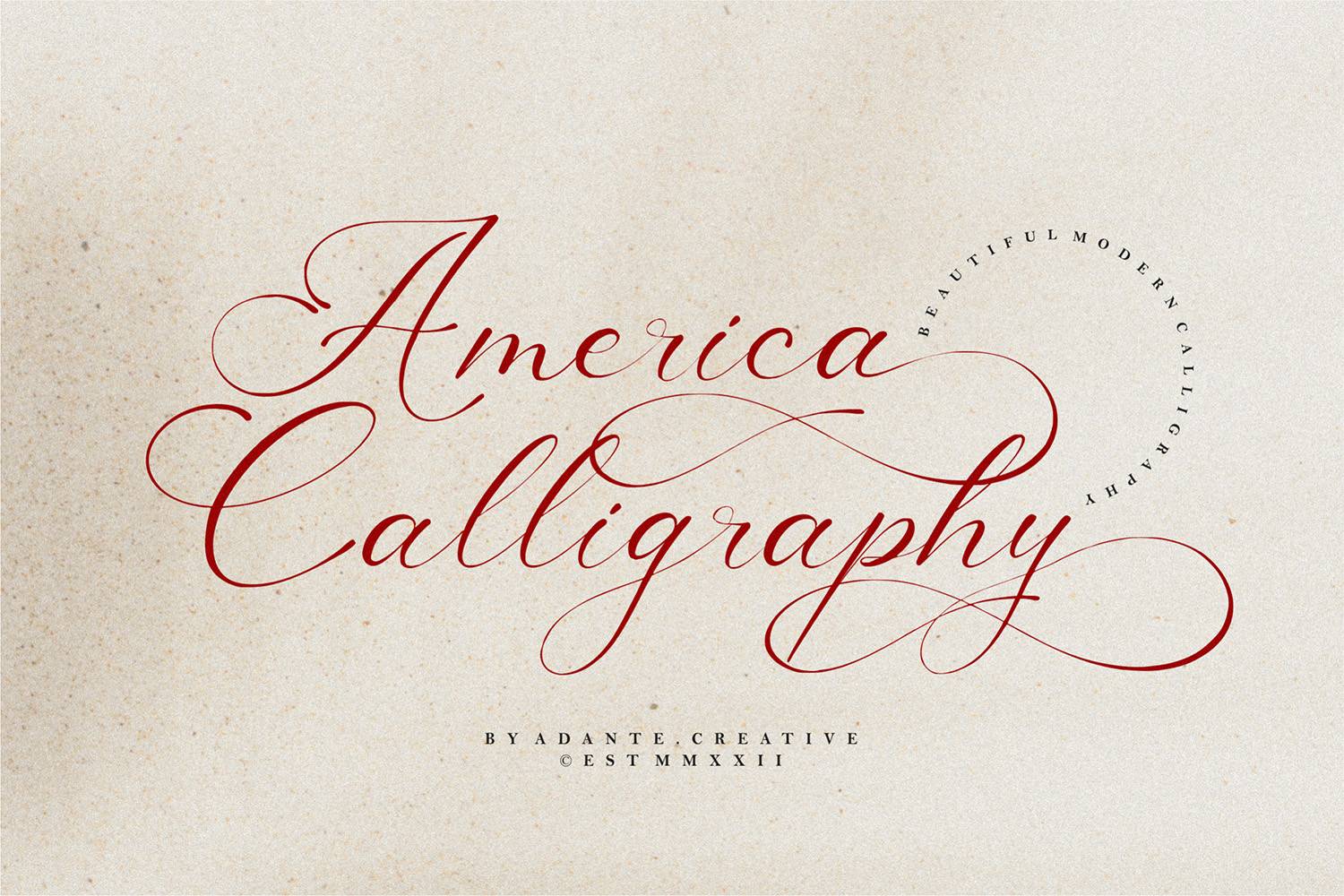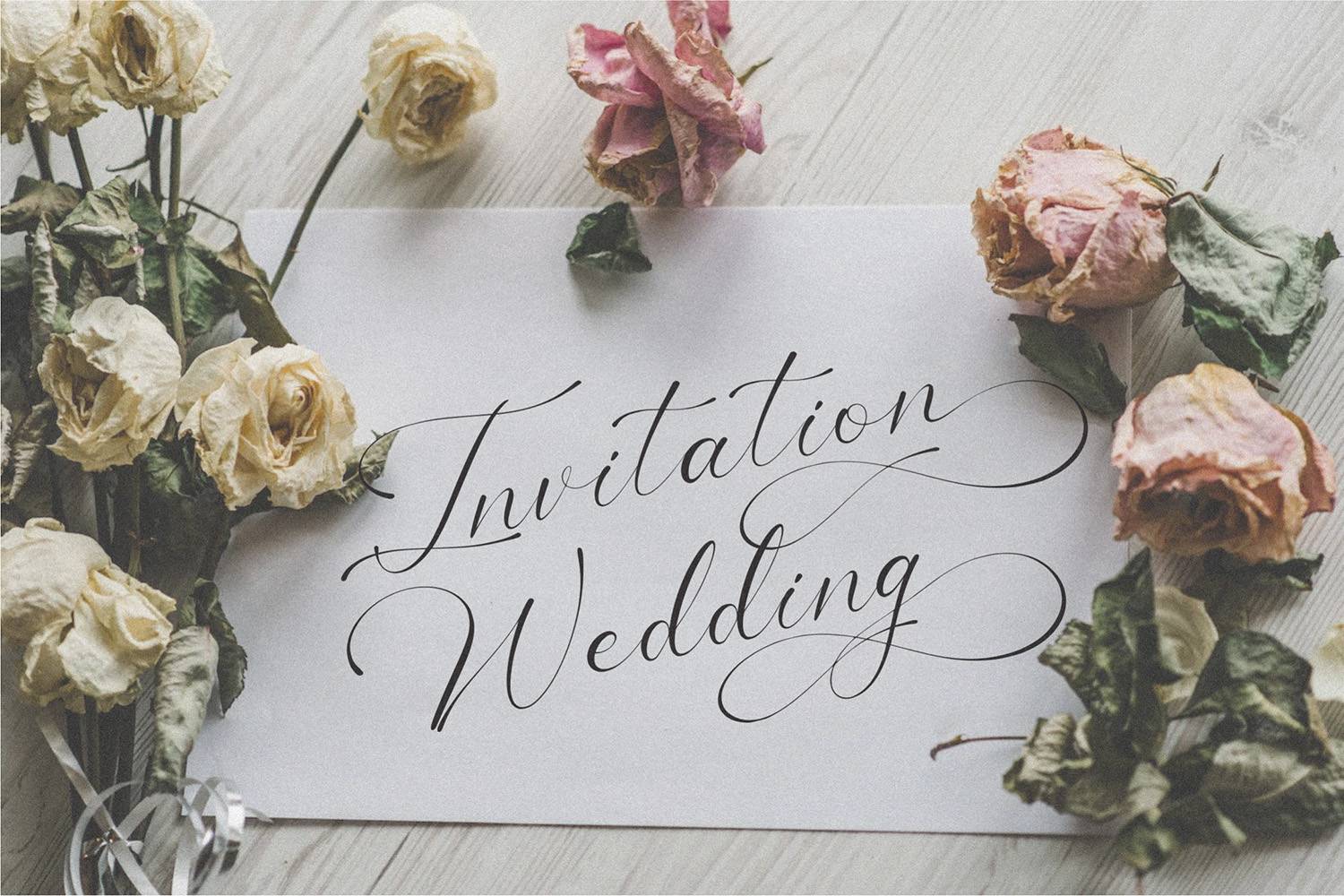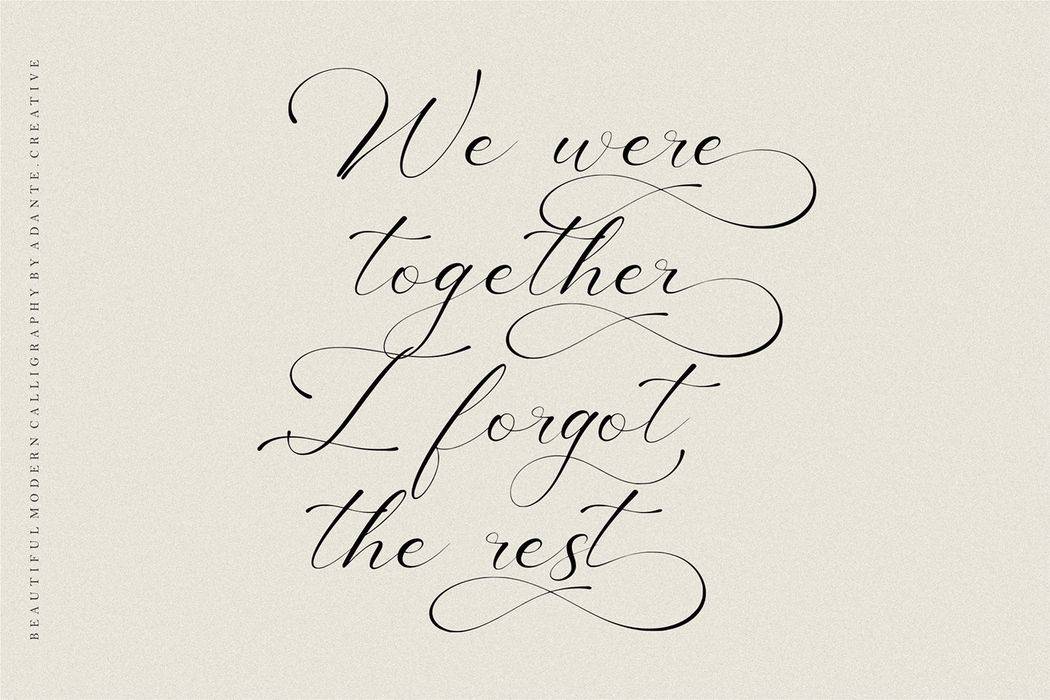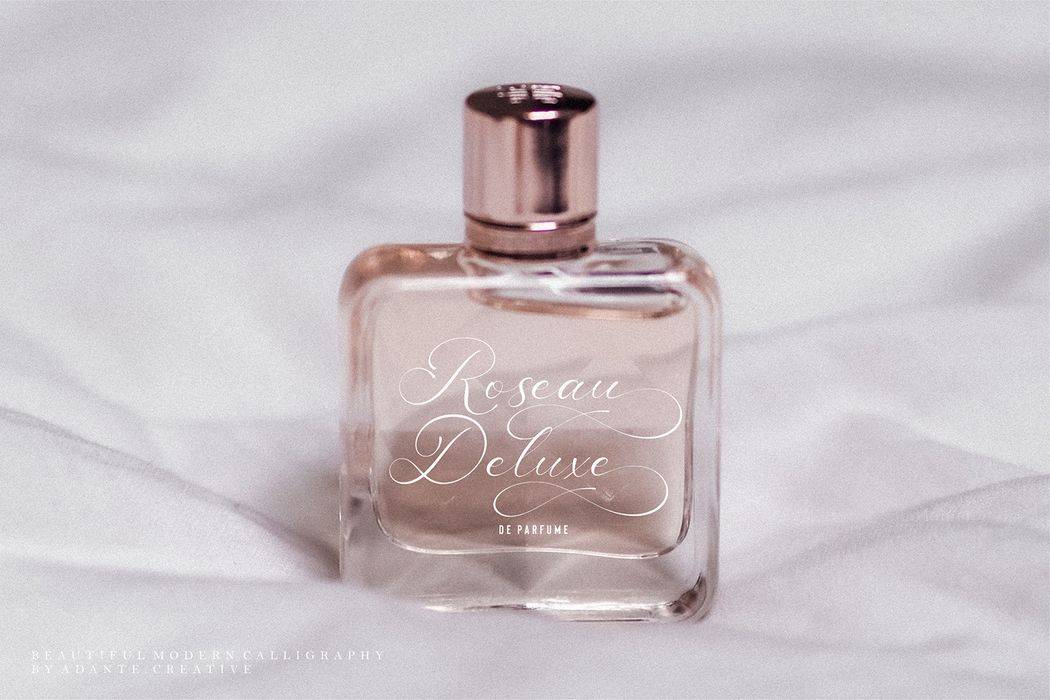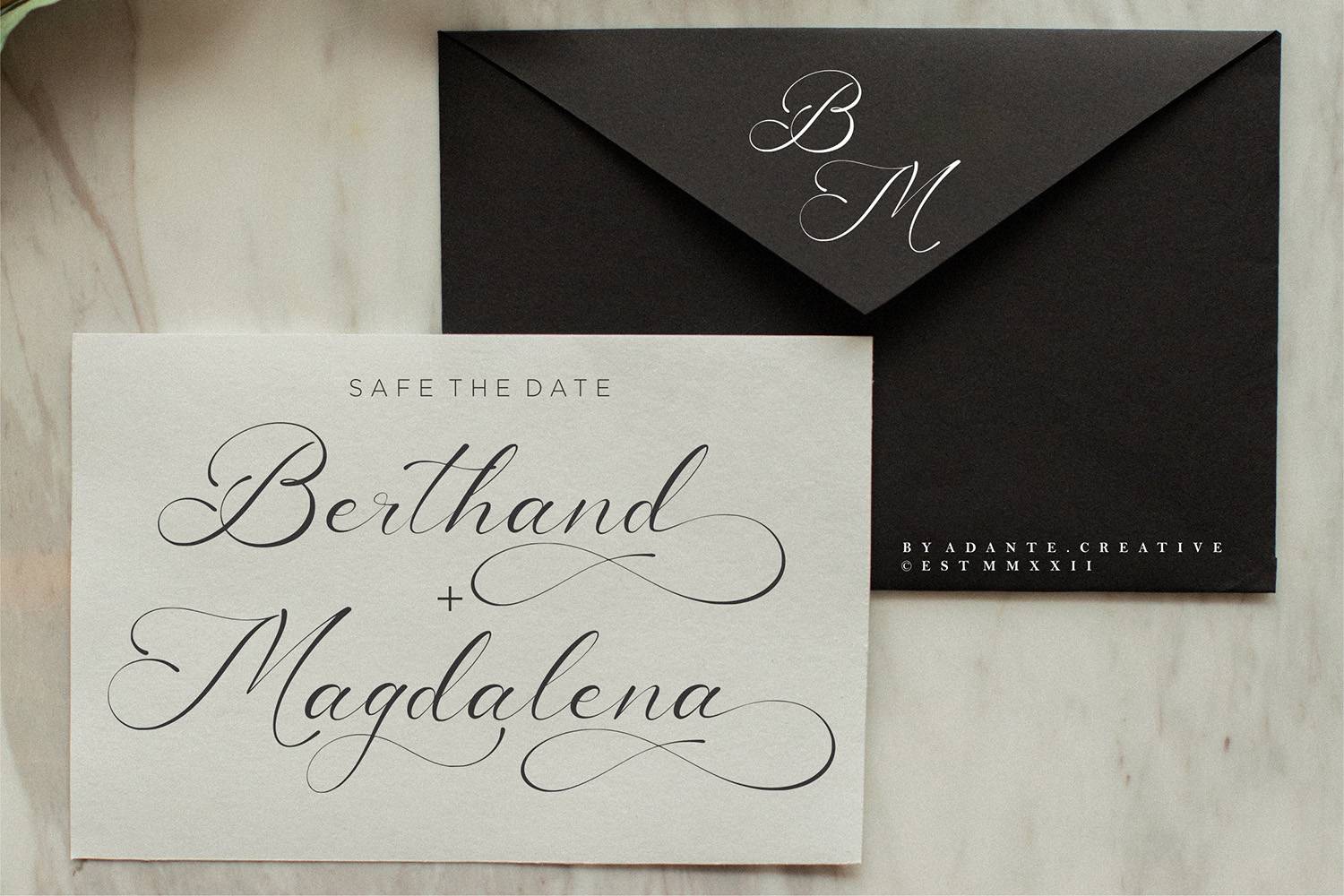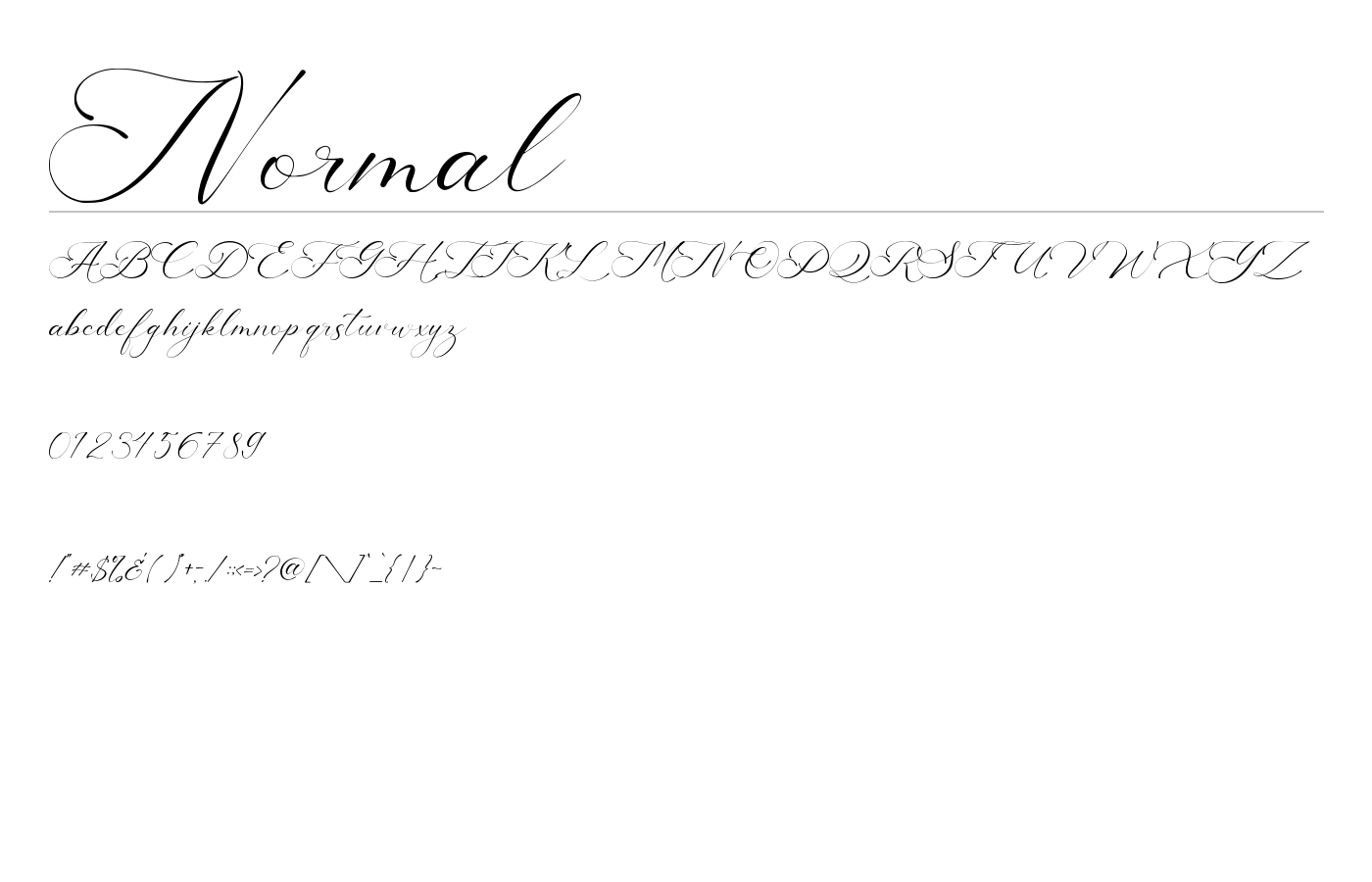
America Calligraphy is a delicate and elegant script font featuring fine, flowing strokes with high contrast between thick and thin lines. Its graceful letterforms and refined curves make it perfect for creating sophisticated invitations, branding, and decorative headlines that convey a sense of luxury and timeless beauty. This font shines in projects that require a refined and stylish handwritten touch.
America Calligraphy Font
About America Calligraphy Font
| Font family | America Calligraphy Font |
| Designer | Adante Creative |